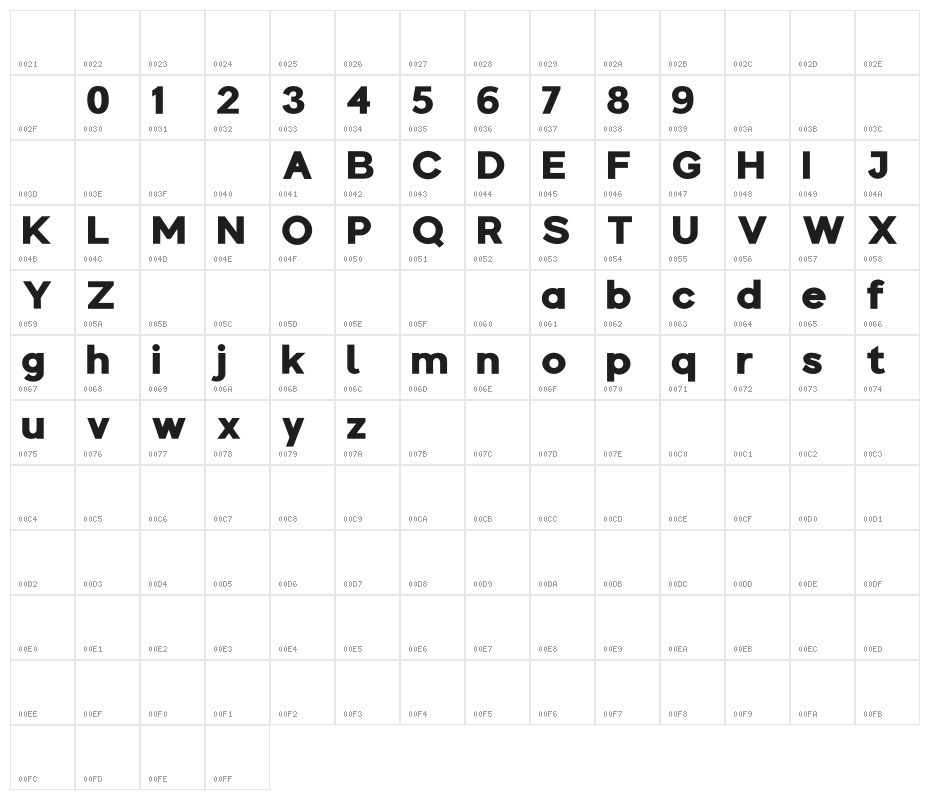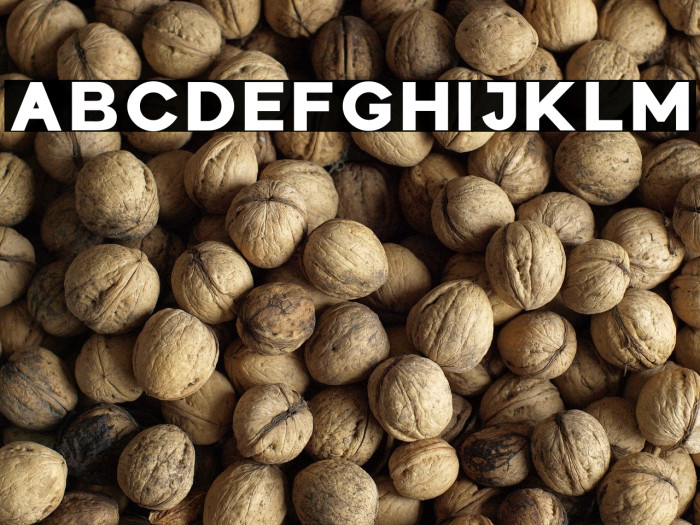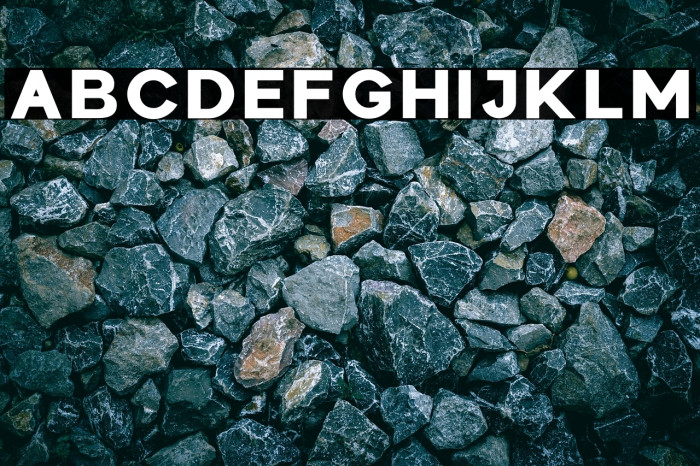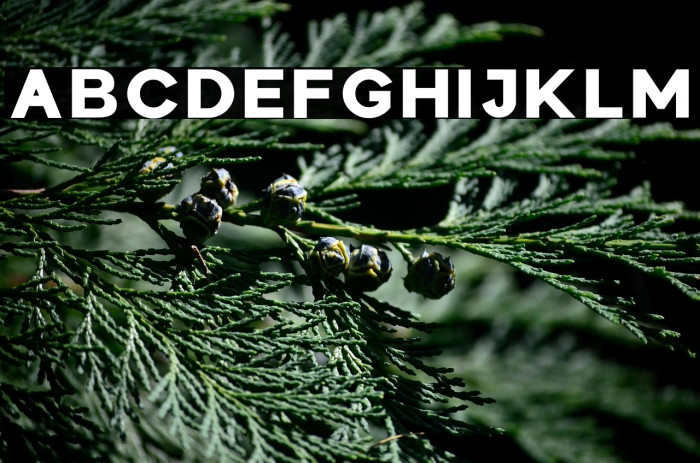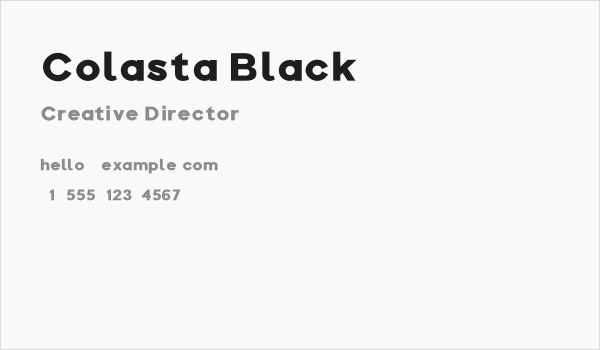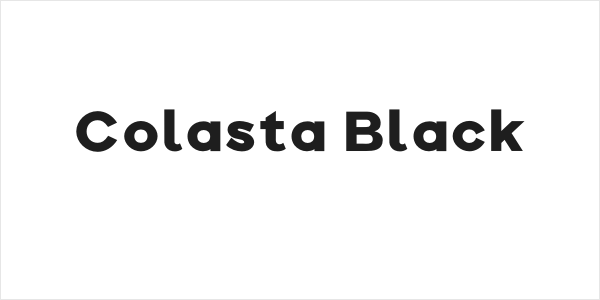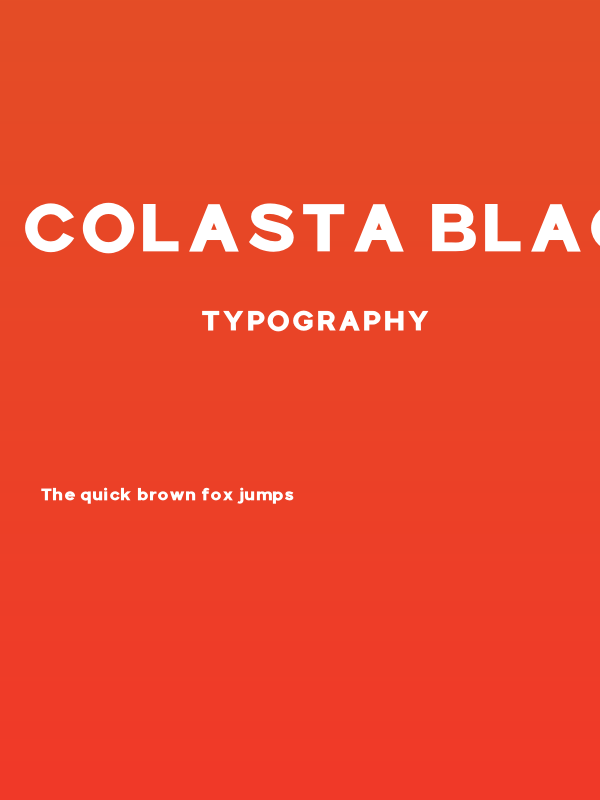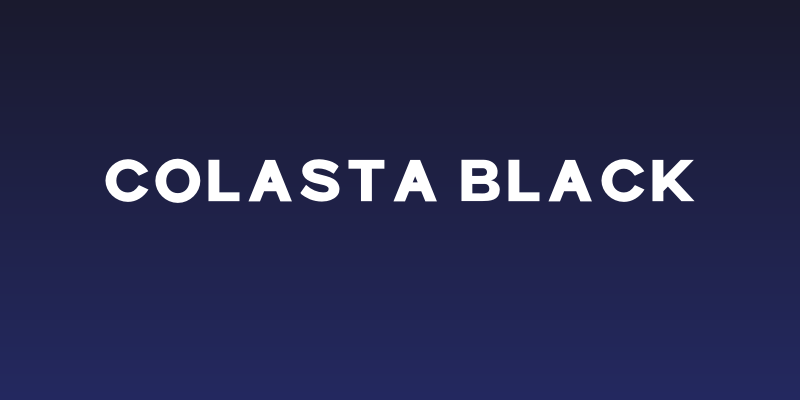
Colasta Black Font
Colasta Black Description
This font features bold, geometric letterforms with a modern and clean aesthetic. The uppercase and lowercase letters are well-balanced, showcasing a uniform stroke width that emphasizes clarity and readability. The numerals are equally bold, maintaining the same weight and style as the alphabet characters. The overall design is straightforward, with no unnecessary embellishments, making it suitable for a variety of applications. The characters are evenly spaced, contributing to its legibility, and the bold weight adds a strong visual impact.
| Proposed Projects | Ideal for branding, headlines, posters, and advertising where a strong, modern presence is desired. |